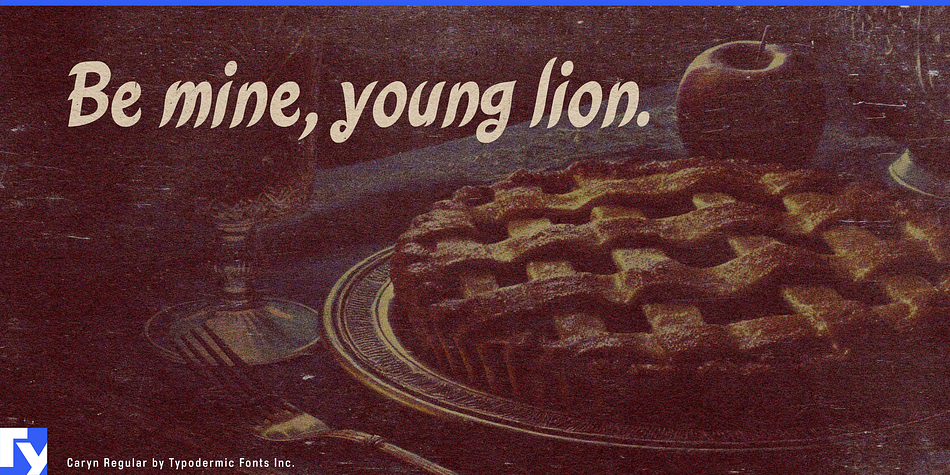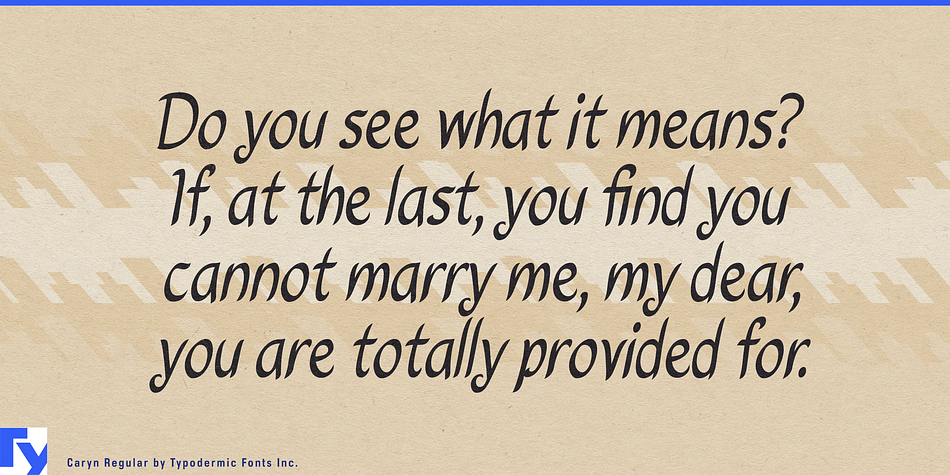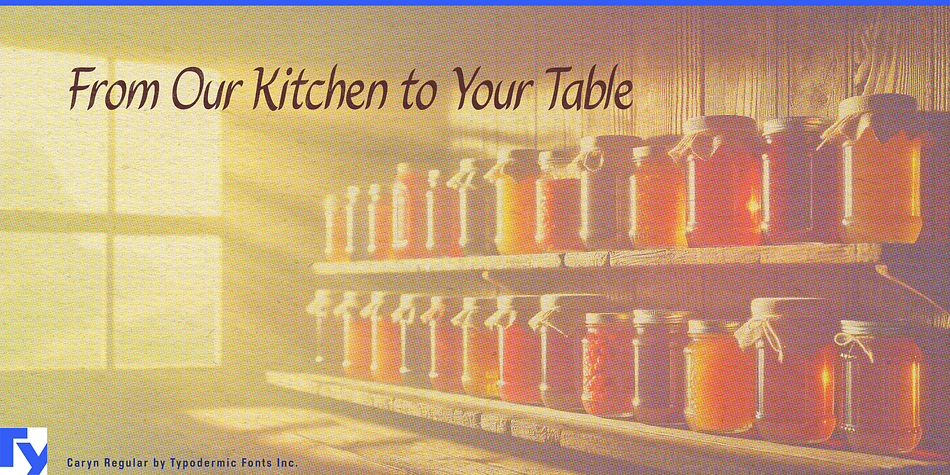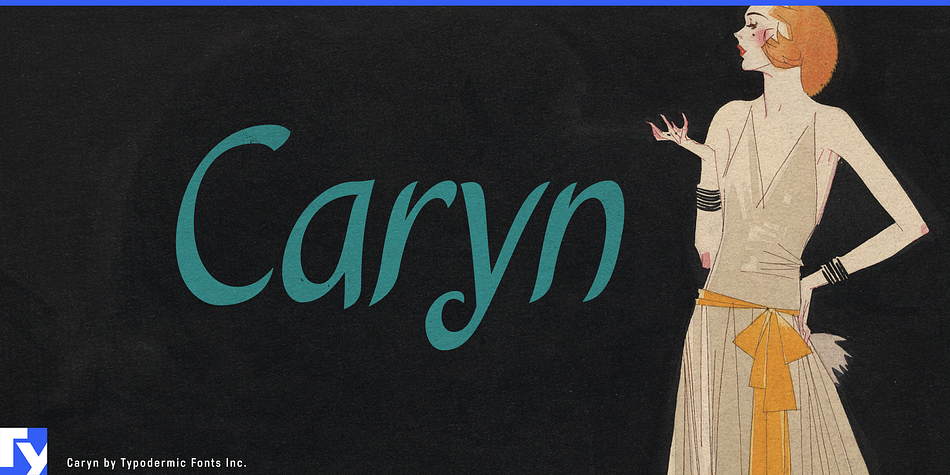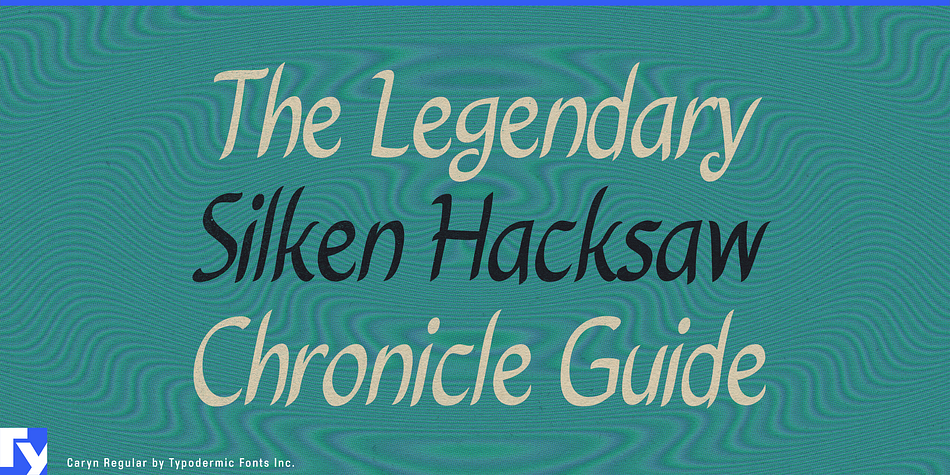
Caryn is a brush script font family. This typeface has two styles and was published by Typodermic Fonts Inc.
Short brush strokes lack artifice and expansive flourishes give Caryn a fun, warm and friendly, expression.